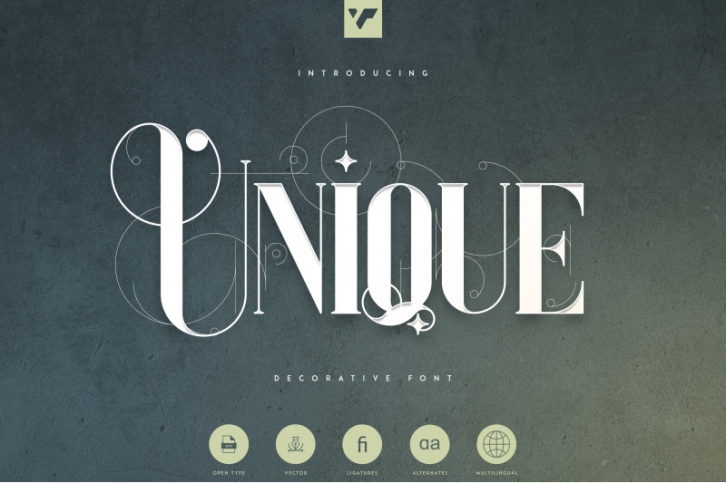
Unique - Decorative Serif Font Download
Introducing Unique - Decorative Serif Font
Unique is decorative, elegant font with tons of alternate glyphs, ligatures and multilingual support. It's a very versatile font that works great in large and small sizes.
Unique is perfect for branding projects, home-ware designs, product packaging, magazine headers - or simply as a stylish text overlay to any background image.
• Uppercase, lowercase, numeral,punctuation & Symbol
• Alternate glyphs
• Multilingual support